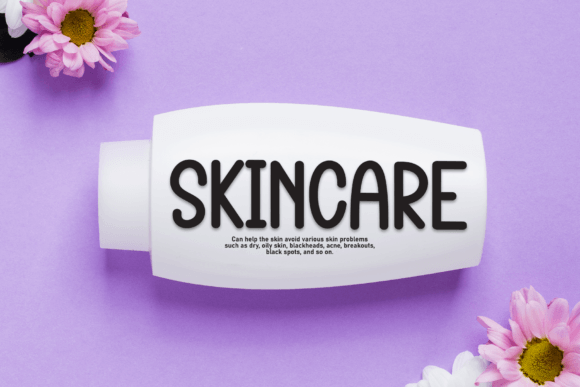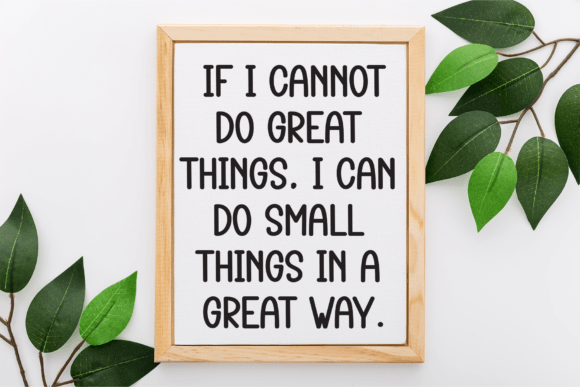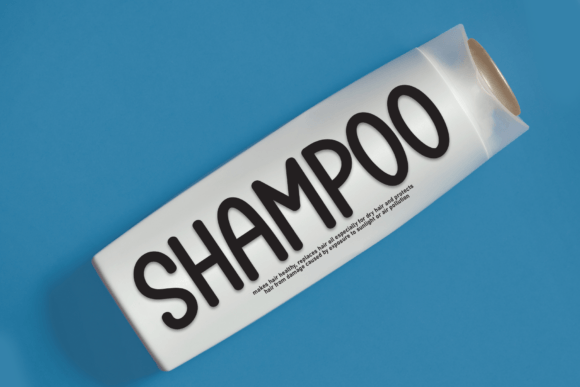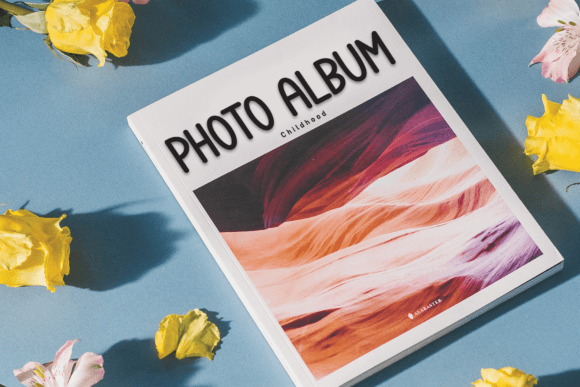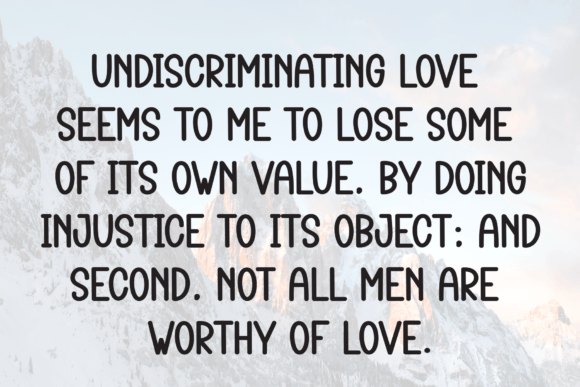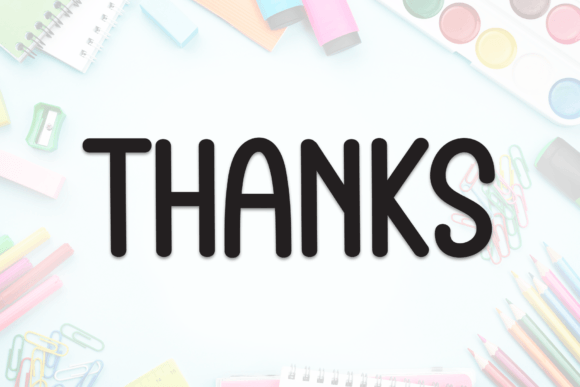
The Perfect Font for a Brighter Day
Remember that moment when a spark of creativity hits you, and you can’t wait to bring your idea to life? You’re surrounded by papers, pencils, and a laptop, but something’s missing – the perfect font to match your vision. That’s where the Kinder Monday Font comes in, a sweet and friendly handwritten font designed to make your designs shine.
Whether you’re a graphic designer, a blogger, or a social media enthusiast, Kinder Monday Font is the perfect addition to your toolkit. Its natural and unique style makes it incredibly versatile, allowing you to use it for a wide range of projects, from children’s books to wedding invitations. With the Kinder Monday Font, the possibilities are endless, and the only limit is your imagination.
Kinder Monday Font Key Features
- Font Family: Kinder Monday is a sans-serif font family designed specifically for children.
- Unique Characteristics: Kinder Monday features rounded edges, soft lines, and a friendly appearance, making it perfect for children’s educational materials, nursery rhymes, and children’s books.
Kinder Monday Font Review
Overall, I think Kinder Monday Font is a cute and playful addition to any design project. ✨ The rounded edges and soft curves give it a friendly feel that’s perfect for kids’ content, educational materials, or even branding for family-oriented businesses. ✨ The font’s simplicity also makes it easy to read, which is a must for any type of content.
However, there are some limitations to consider. ⚠️ One of the main issues is the font’s limited character set. If you need to typeset any special characters or languages, you may find yourself restricted. ⚠️ Additionally, the font’s bold and italic styles can look a bit awkward, which may not be suitable for all designs.
- ✨ Friendly and playful feel
- ✨ Easy to read
- ⚠️ Limited character set
- ⚠️ Awkward bold and italic styles
Despite these limitations, I think Kinder Monday Font is a great choice for the right project. If you’re looking for a fun and approachable font for kids’ content or family-friendly branding, Kinder Monday is definitely worth considering.
The Kinder Monday Font is perfect for creating playful and child-friendly designs. Some common use cases include:
- Children’s book covers and illustrations
- Education and learning materials
Remember to use the font in a way that is consistent with its playful and child-friendly nature.
Alternatives to Kinder Monday Font
Akira Expanded
Akira Expanded is a sans-serif font designed by Akira Kobayashi. It’s ideal for body text and headings in digital and print designs. This font has a similar feel to Kinder Monday Font, with a friendly and approachable tone, but it’s more versatile and has a wider range of weights.
Lato is a modern sans-serif font designed by Łukasz Dziedzic. It’s suitable for a wide range of applications, from digital interfaces to print materials. Compared to Kinder Monday Font, Lato has a more minimalist and clean look, making it perfect for modern designs.
Montserrat is a sans-serif font designed by Julieta Ulanovsky. It’s inspired by urban typography and is ideal for digital and print designs that require a strong, modern look. While Kinder Monday Font has a softer and more playful feel, Montserrat is more edgy and versatile, making it suitable for a variety of design projects.
Open Sans is a sans-serif font designed by Steve Matteson. It’s a highly legible font that’s suitable for digital and print designs. Compared to Kinder Monday Font, Open Sans has a more neutral tone and is more versatile, making it perfect for designs that require a clean and professional look.
Unique Projects with Kinder Monday Font
Create a whimsical menu board for a children’s restaurant or a themed party. The Kinder Monday Font adds a playful touch to the menu board.